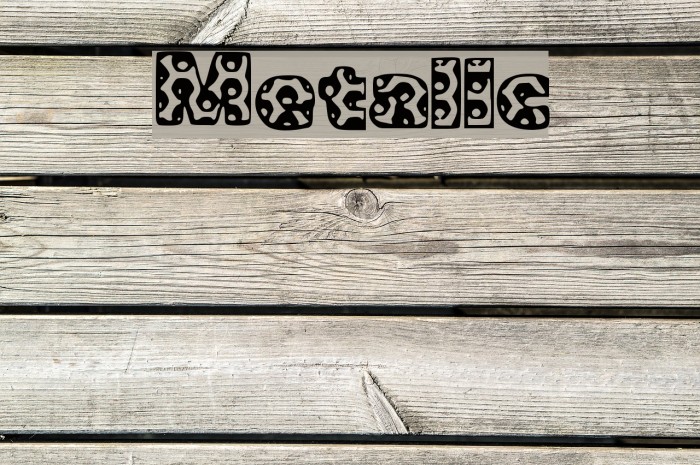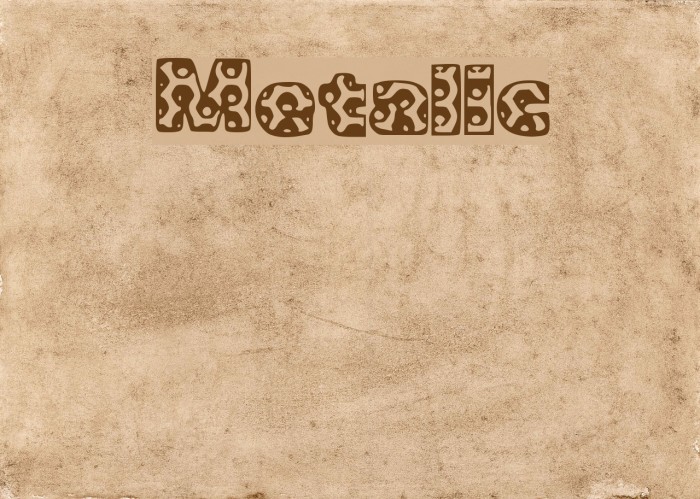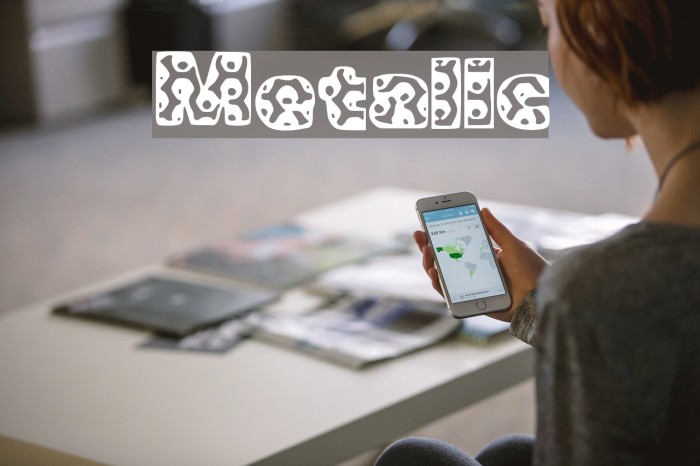
Metalic Font
This font features a bold and playful design with a unique pattern reminiscent of metallic textures or abstract art. Each character is filled with intricate, swirling shapes that create a sense of movement and depth. The letters are blocky and robust, making them highly visible and attention-grabbing. The overall aesthetic is both modern and artistic, suitable for creative projects that require a distinctive and eye-catching typeface. The font includes a full set of uppercase and lowercase letters, numbers, and a variety of special characters, all maintaining the same decorative style.
A bold, artistic font with intricate, metallic-like patterns.
- Proposed Projects: Ideal for posters, album covers, branding, and any project needing a bold, artistic touch.
- Overall Style: Modern, Artistic